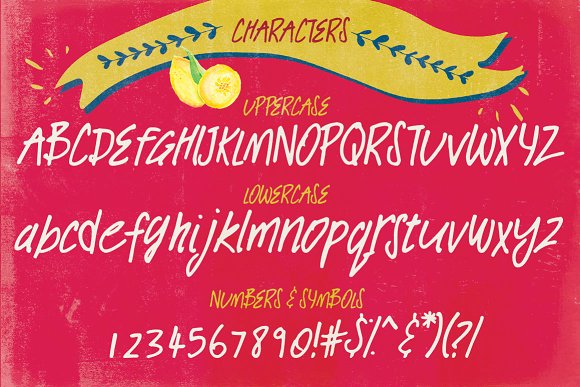
Introducing Lusciously Font: A Stroke of Elegance for Your Design Palette
In a world where creativity knows no bounds, allow us to unveil a font that embodies the essence of sophistication and charm - Lusciously Font. Born from the hands of Creativeqube Design, this script font is a masterpiece that dances across your designs with an unmatched grace.
Lusciously Font isn't just a font; it's an experience. Each letter, meticulously crafted, carries with it a story of passion and dedication. Its elegant curves flow like a gentle stream, while its delicate strokes whisper tales of timeless beauty. With Lusciously Font, your designs will transcend the ordinary, capturing hearts and leaving an indelible mark on your audience.
Imagine your wedding invitations adorned with Lusciously Font's graceful script, exuding a timeless elegance that will make your special day even more memorable. Envision your social media posts blooming with creativity as Lusciously Font adds a touch of allure to your captions and quotes. Unleash your inner artist and watch as your designs take on a new life, brimming with personality and sophistication.
Whether you're a seasoned designer or just starting your creative journey, Lusciously Font is the perfect companion for your projects. Its versatility knows no limits, allowing you to effortlessly elevate everything from branding materials to personal projects. Embrace the power of Lusciously Font and watch as your designs transform into captivating works of art.